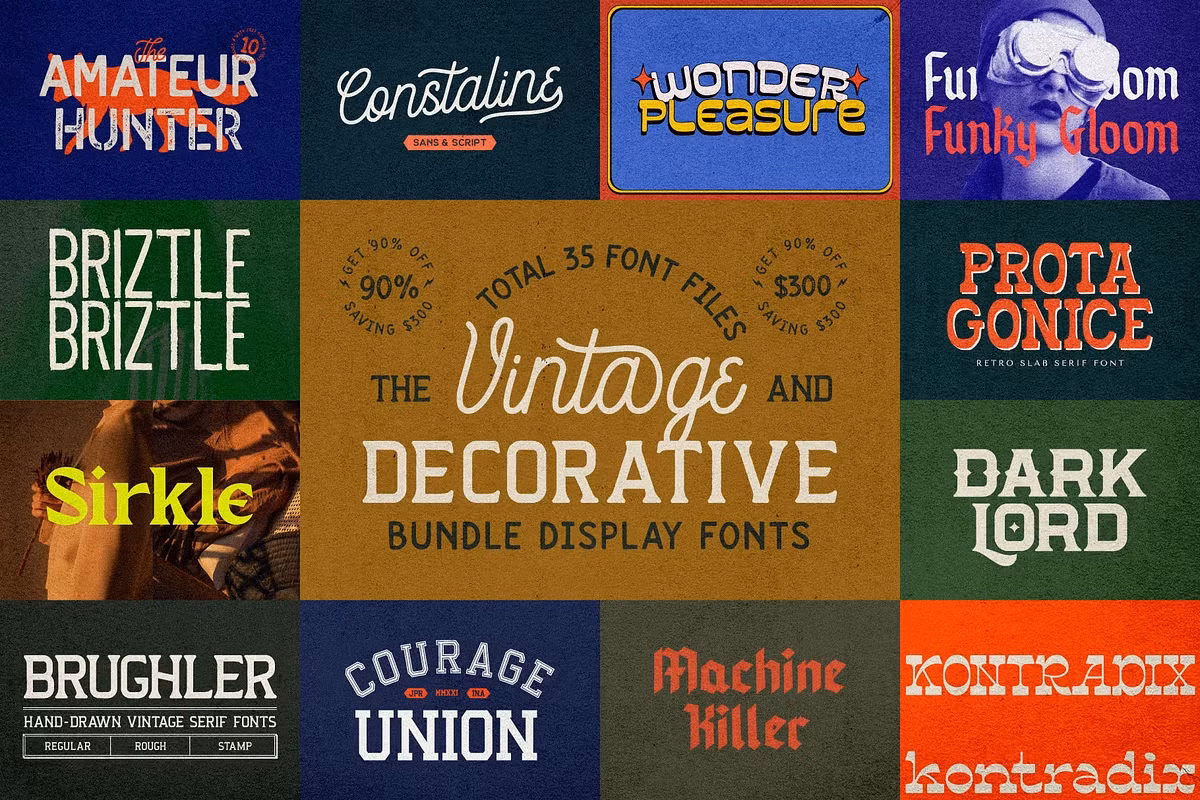
Vintage & Decorative Display Bundle Free Download is a carefully curated collection of fonts that bring a timeless, vintage feel to your designs. Featuring elegant decorative elements and classic typography, this bundle is perfect for creating retro logos, posters, branding materials, and more. Whether you’re working on a vintage-inspired event, packaging, or an elegant editorial layout, these fonts will add character and flair to your projects. With a mix of decorative flourishes and clean, vintage designs, Vintage & Decorative Display Bundle Free Download gives you the opportunity to experiment with these fonts in personal projects before purchasing a commercial license. Add a touch of nostalgia and sophistication to your work with this versatile and stylish font bundle.